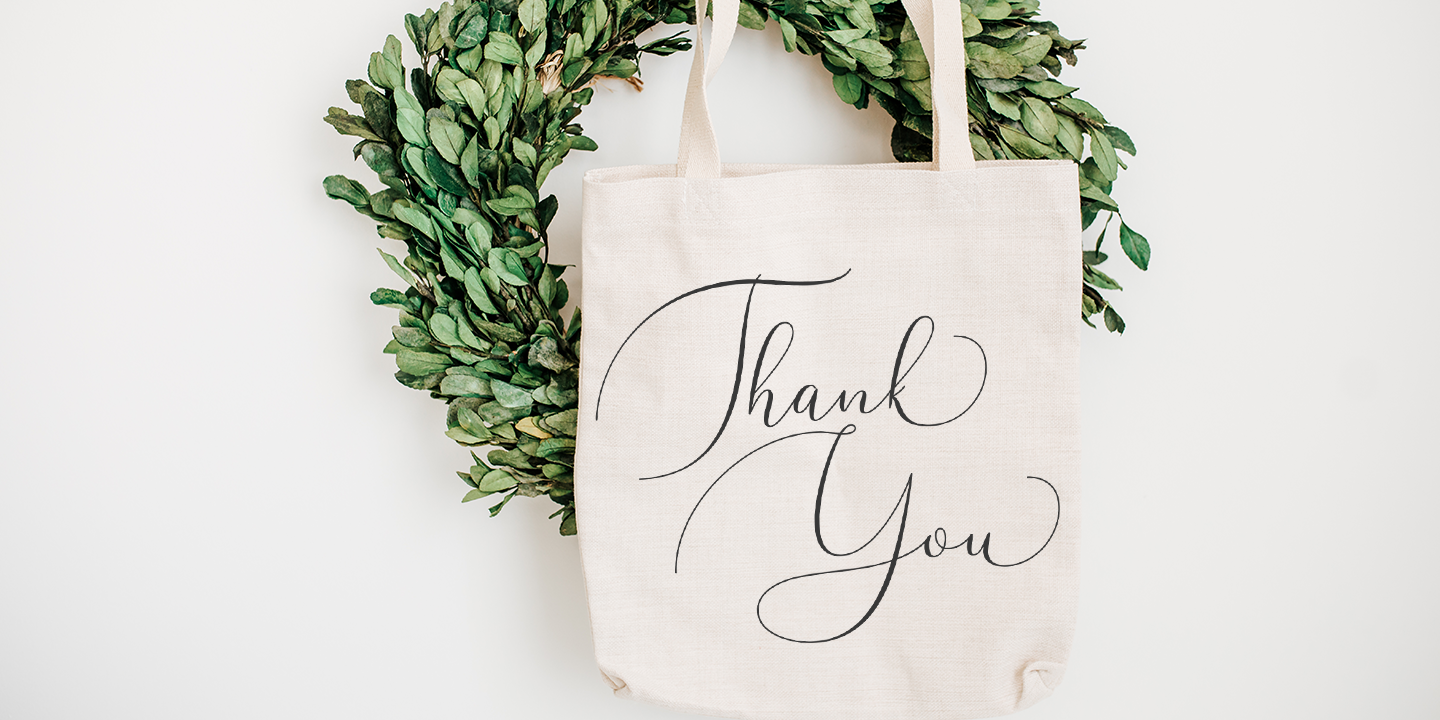
Argentina Script Font Free Download is a beautifully crafted script typeface that combines elegance and fluidity with a modern flair. Perfect for wedding invitations, branding, logos, greeting cards, and stylish editorial designs, Argentina Script brings a handcrafted and sophisticated feel to any project.
Its smooth, connected strokes and delicate curves create a natural handwriting effect, making your text feel warm and inviting. Whether used for headlines, quotes, or signature logos, Argentina Script Font Free Download adds a touch of romance and refinement.
The font supports multilingual characters and includes stylistic alternates and ligatures, enhancing its versatility. It’s fully compatible with Adobe Creative Suite, Canva, Figma, Sketch, and other major design platforms.